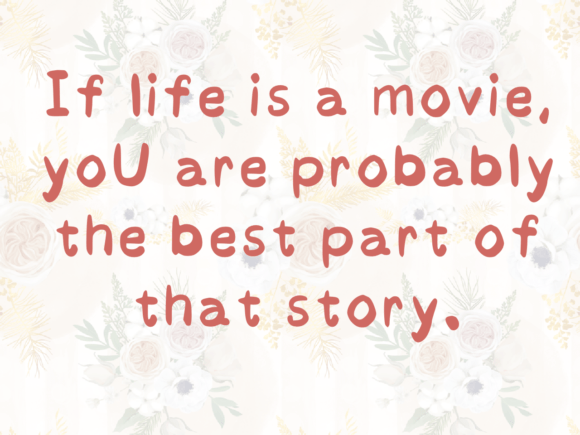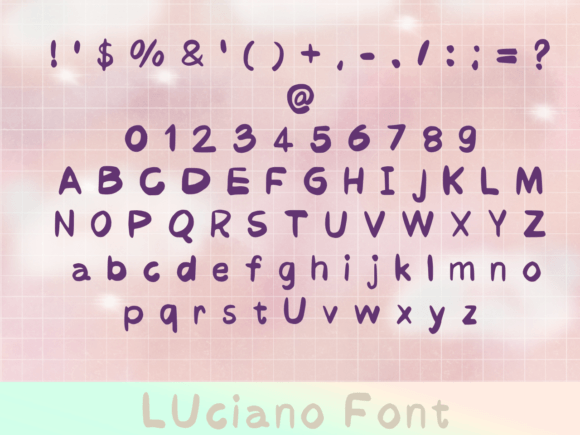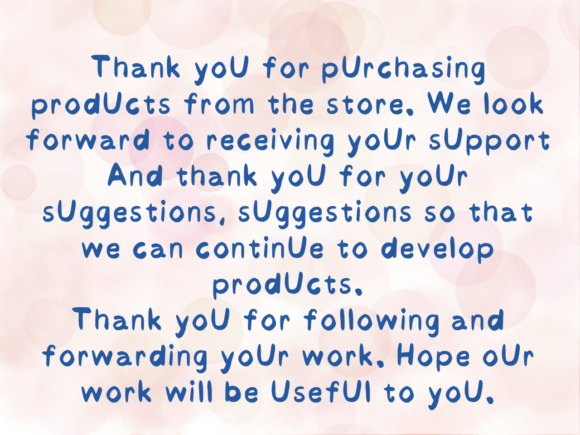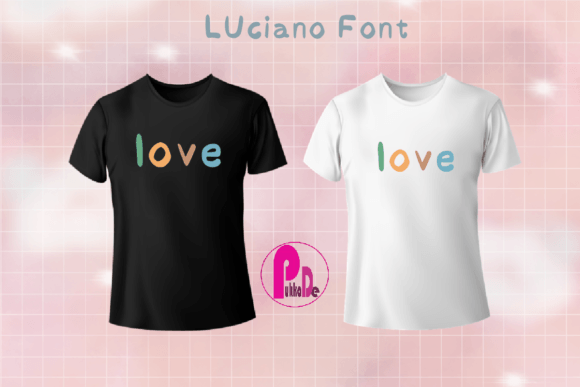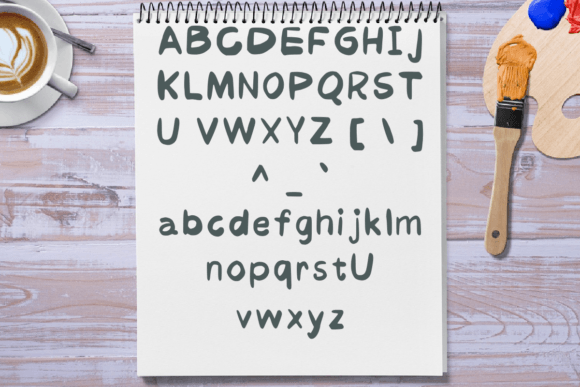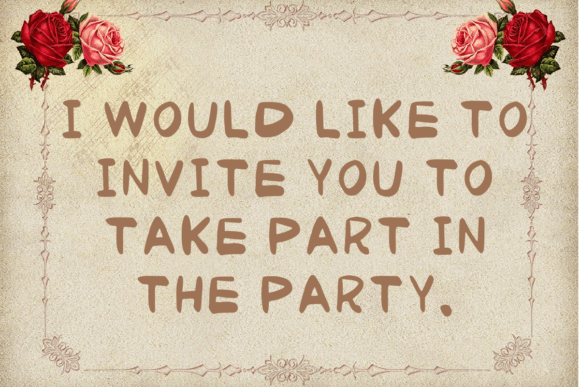
Introduction to Luciano Font
Imagine you’re working on a creative project, and you’re struggling to find the perfect font to match your design’s playful vibe. You’ve browsed through countless options, but nothing seems to capture the whimsical feel you’re going for. That’s where the charming Luciano Font comes in – a free download that’s about to become your new design best friend.
With its high-quality, handwritten characters, Luciano Font is a game-changer for designers looking to add a personal touch to their designs. Whether you’re working on a project that requires a transparent background or a design that needs a friendly, approachable look, this versatile font is sure to deliver.
Key Features of Luciano Font
- High-quality font design, perfect for creative projects
- Comes in a transparent background, allowing for seamless integration into various designs
- Designed to work well in both digital and print media, ensuring optimal results for your creative project
- Unique, stylish design that adds a touch of sophistication to any layout or design
Honest Review: Luciano Font
I recently had the chance to work with Luciano Font for a creative project, and I must say it’s been a game-changer. As a designer, I’m always on the lookout for high-quality design resources that can elevate my work, and Luciano Font definitely delivers.
- ✨ The font’s sleek and modern design makes it perfect for any creative project.
- ✨ The transparent background feature allows for endless customization options.
One thing that works really well is the font’s versatility. It can be used for a wide range of applications, from logos to typography-based designs. The font’s high quality is evident in every detail, making it a great addition to any design project.
However, I do have a few minor quibbles ⚠️. The font’s weight can be a bit inconsistent at times, which can make it difficult to achieve a uniform look. Additionally, the font’s support for certain languages is limited.
Overall, I’m really impressed with Luciano Font. Its high quality, versatility, and free download make it a must-have for any designer. While it may have a few limitations, I believe it’s a valuable resource that can help take your creative projects to the next level.
Luciano Font
Luciano Font is a high-quality design resource that offers a unique and stylish touch to your creative projects. With its transparent background, this font is perfect for adding a touch of elegance to your designs.
Tips for getting the most out of the Luciano Font include:
- Experiment with different font sizes and styles to achieve the desired effect.
- Combine the Luciano Font with other design elements to create a cohesive and visually appealing design.
Common use cases for the Luciano Font include:
- Designing wedding invitations and other formal event materials.
- Creating business cards and other marketing materials.
- Designing digital products such as e-books and infographics.
Can I use Luciano Font with a transparent background?
Yes, Luciano Font supports transparent backgrounds, making it ideal for designs that require a high level of customization. To use Luciano Font with a transparent background, ensure that your design software supports layer styles and that you’ve set the font to use a transparent background. This will allow you to create designs with a seamless, high-quality look.